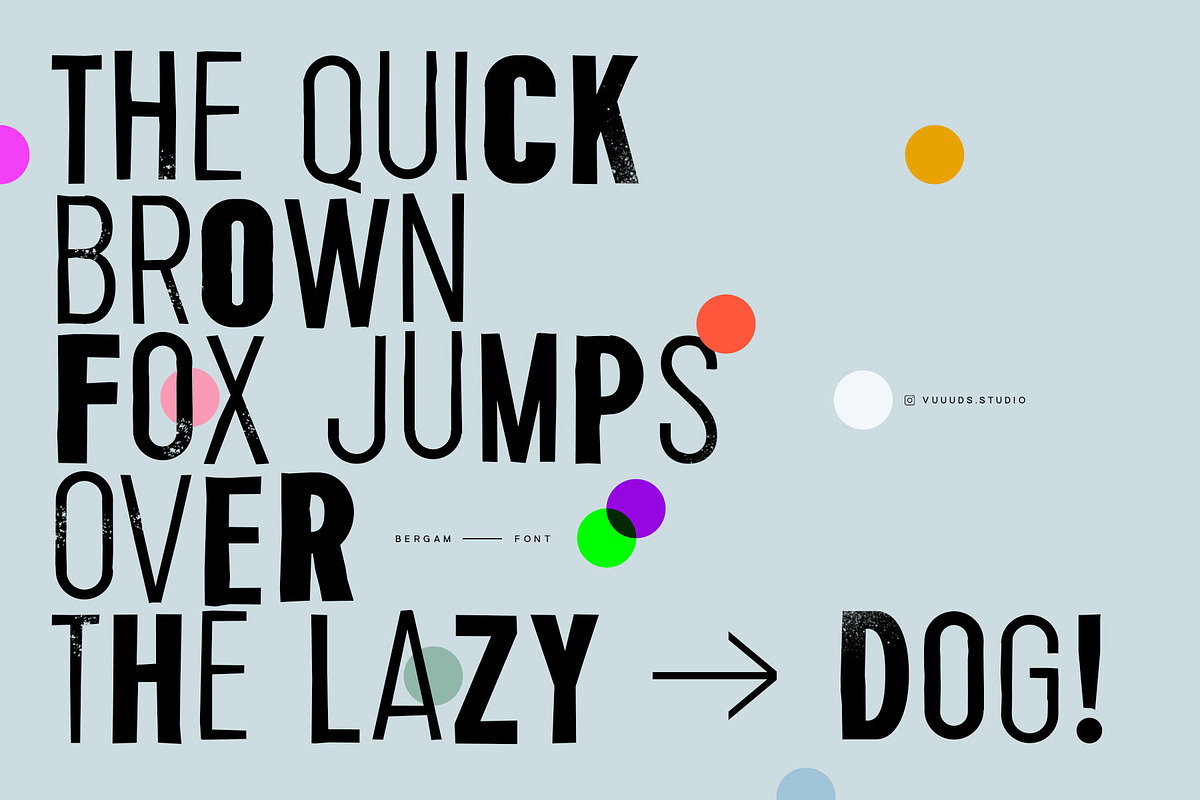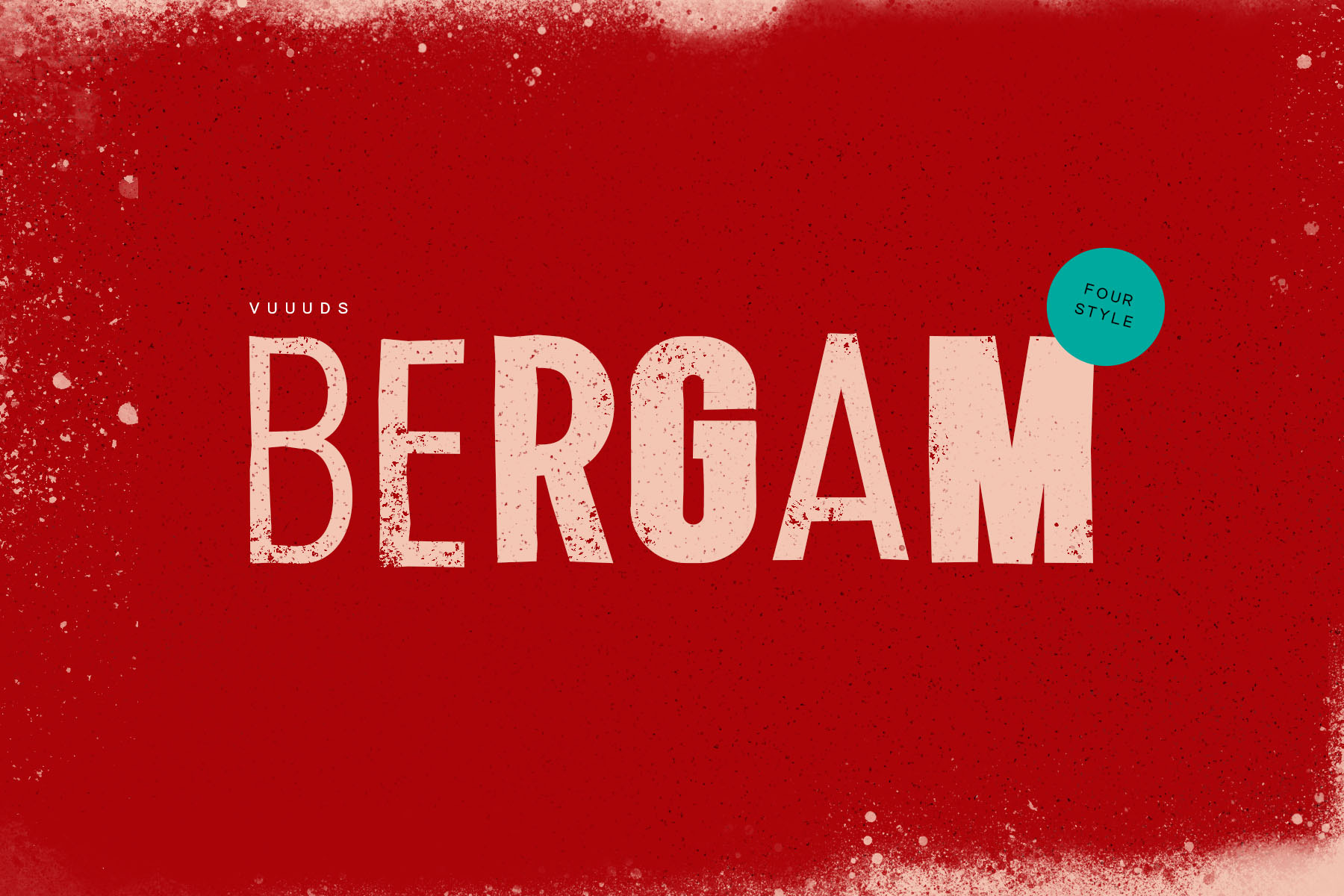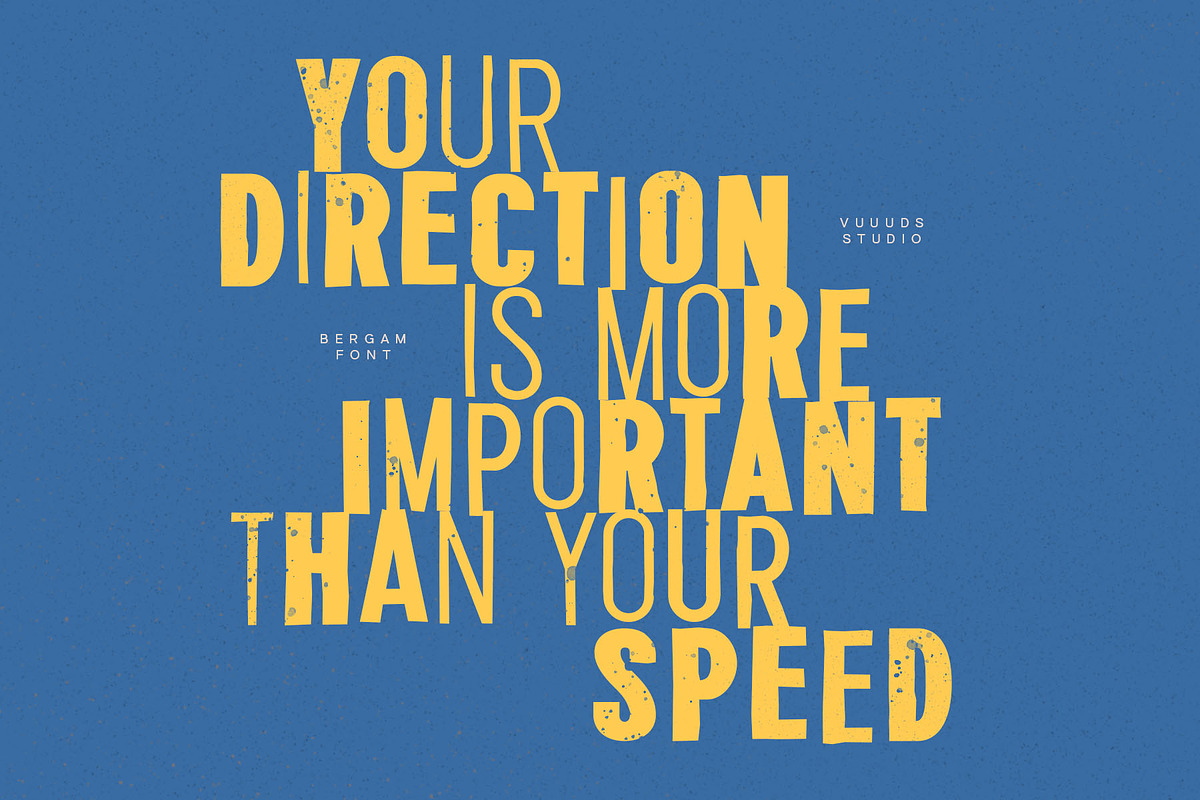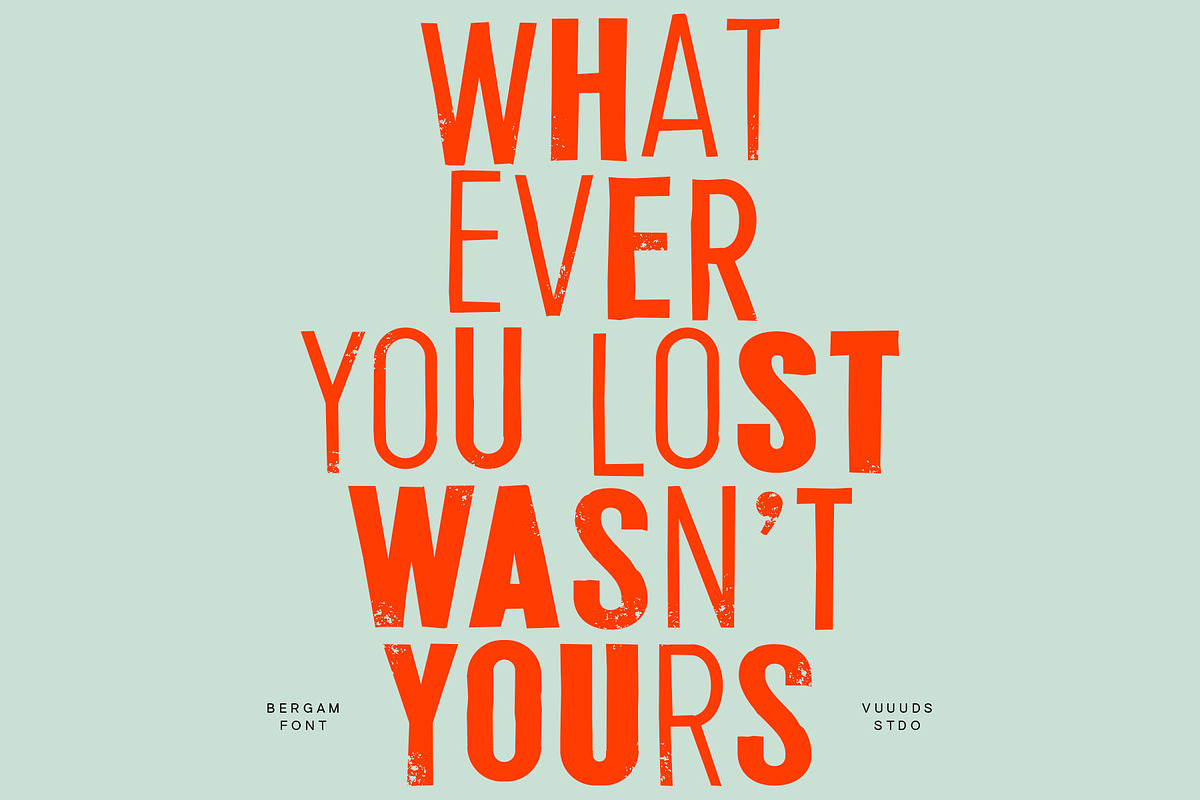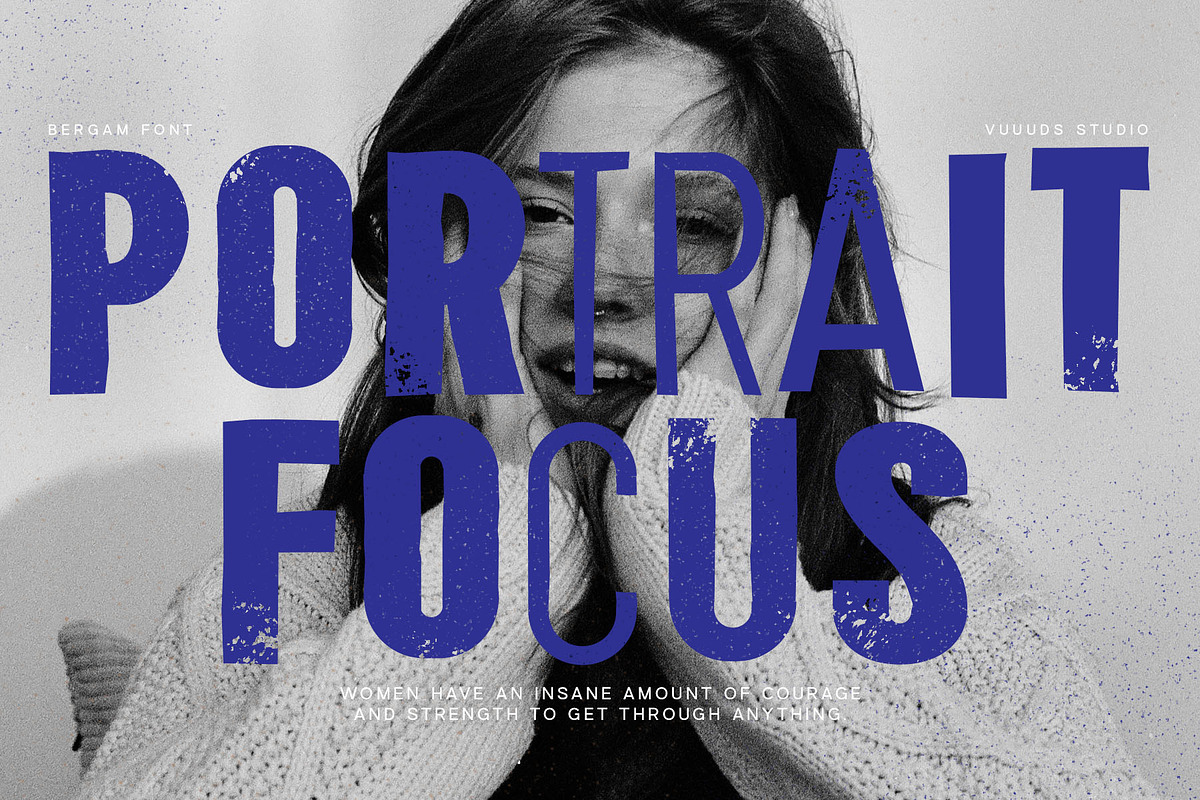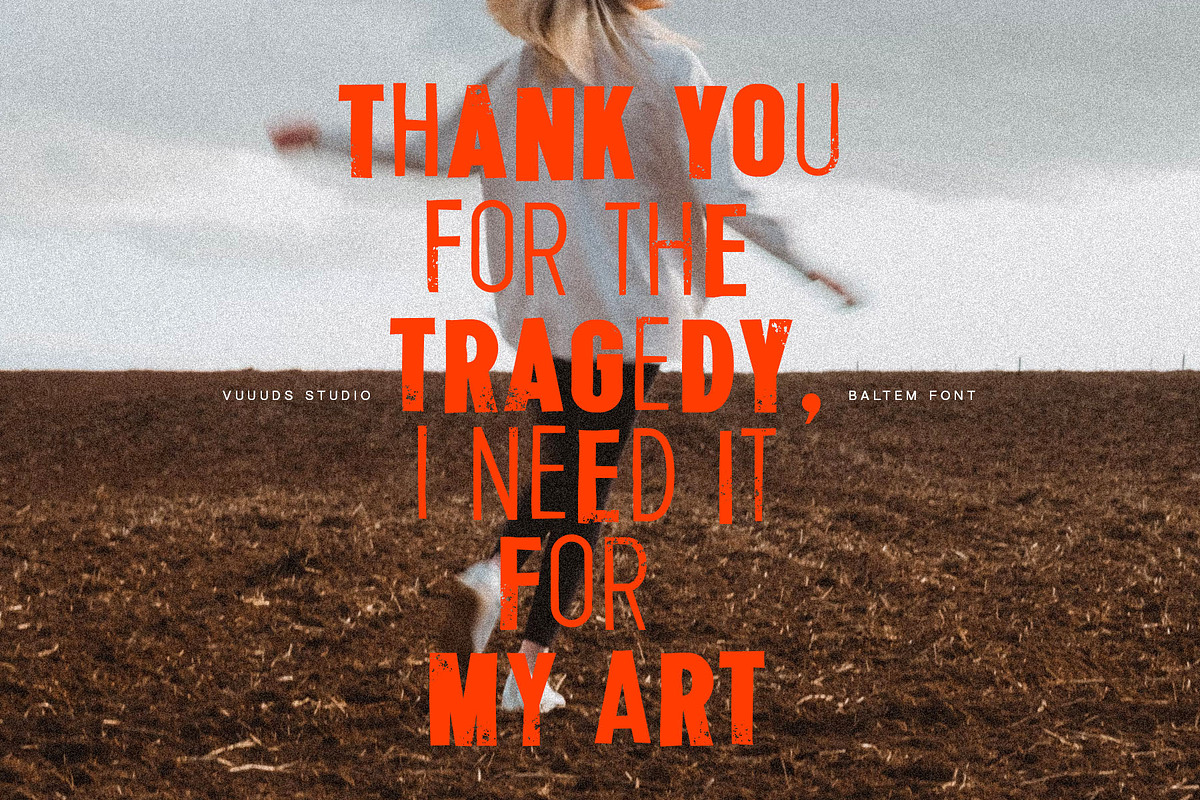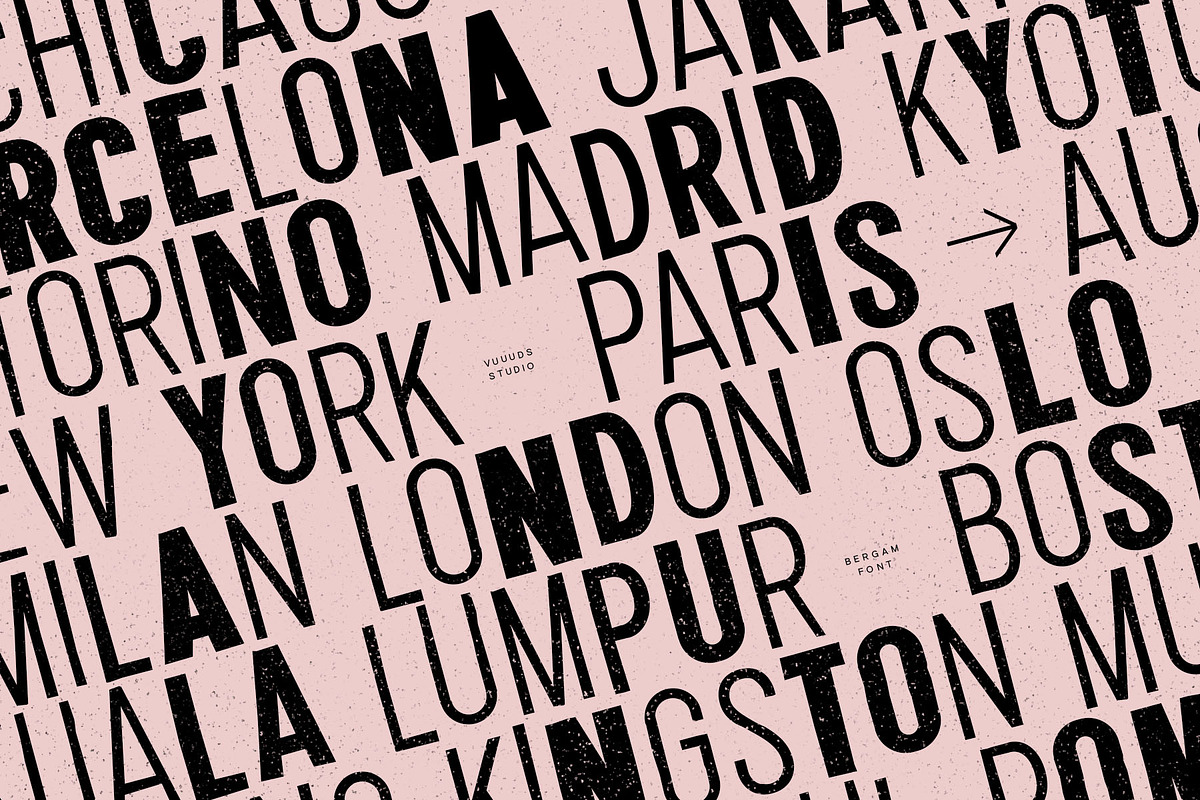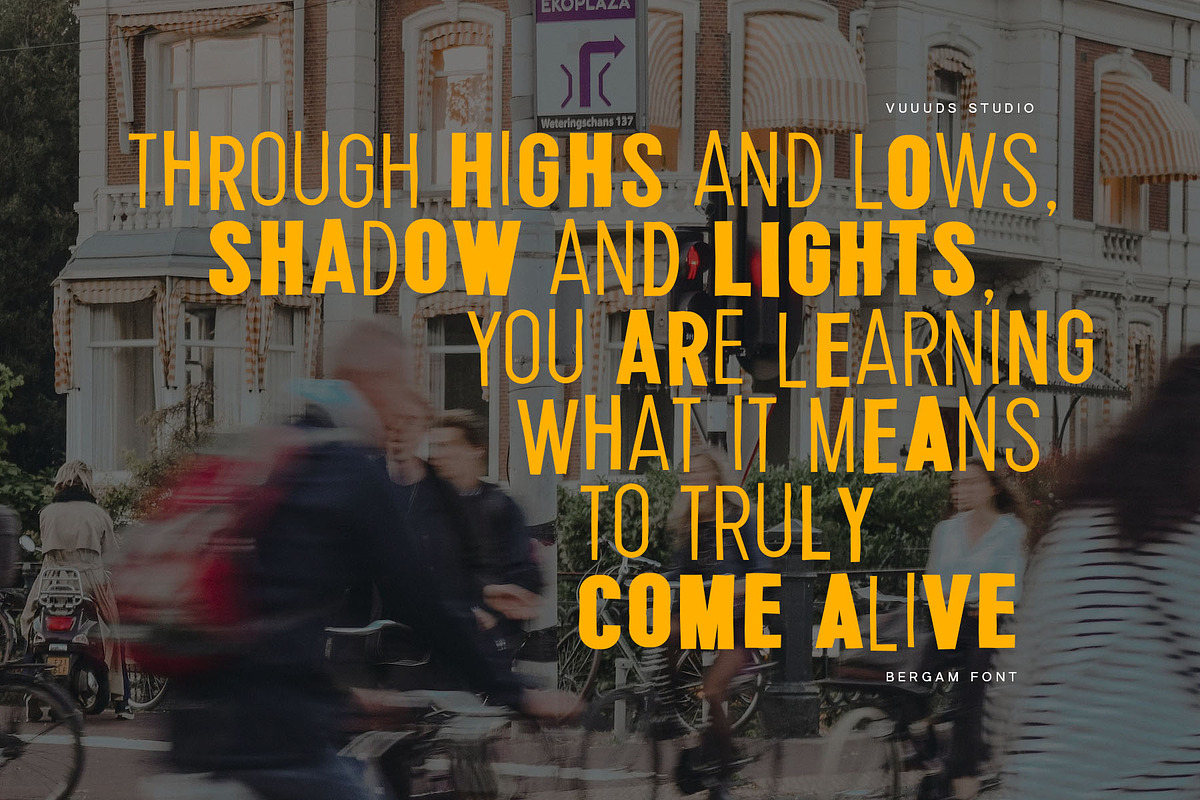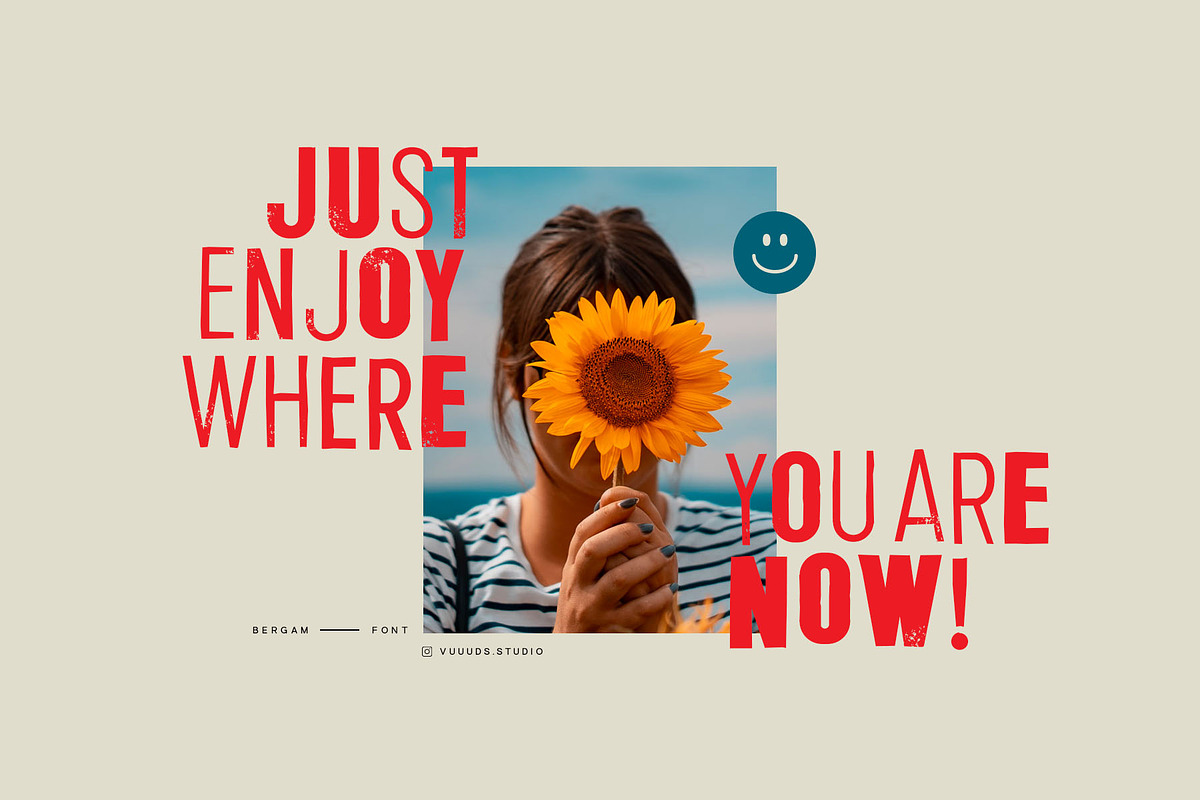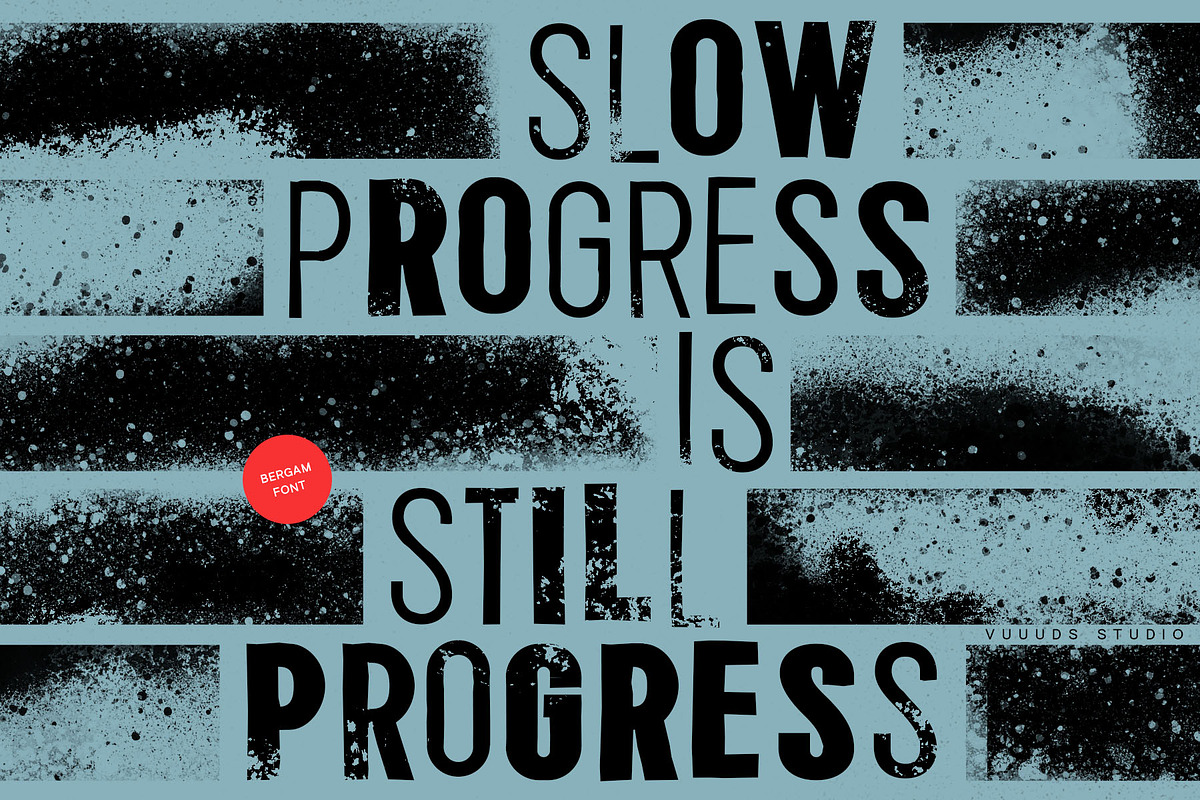
Bergam Font
Introducing Bergam Font!
Bergam is sans serif display font with four different weight to make your design project even cooler!
Foreign languages support: ÀÁÂÃÄÅÆÇÈÉÊËÌÍÎÏÐÑÒÓÔÕÖØÙÚÛÜÝàáâãäåæçèéêëìíîïðñòóôõöøùúûüýÿ